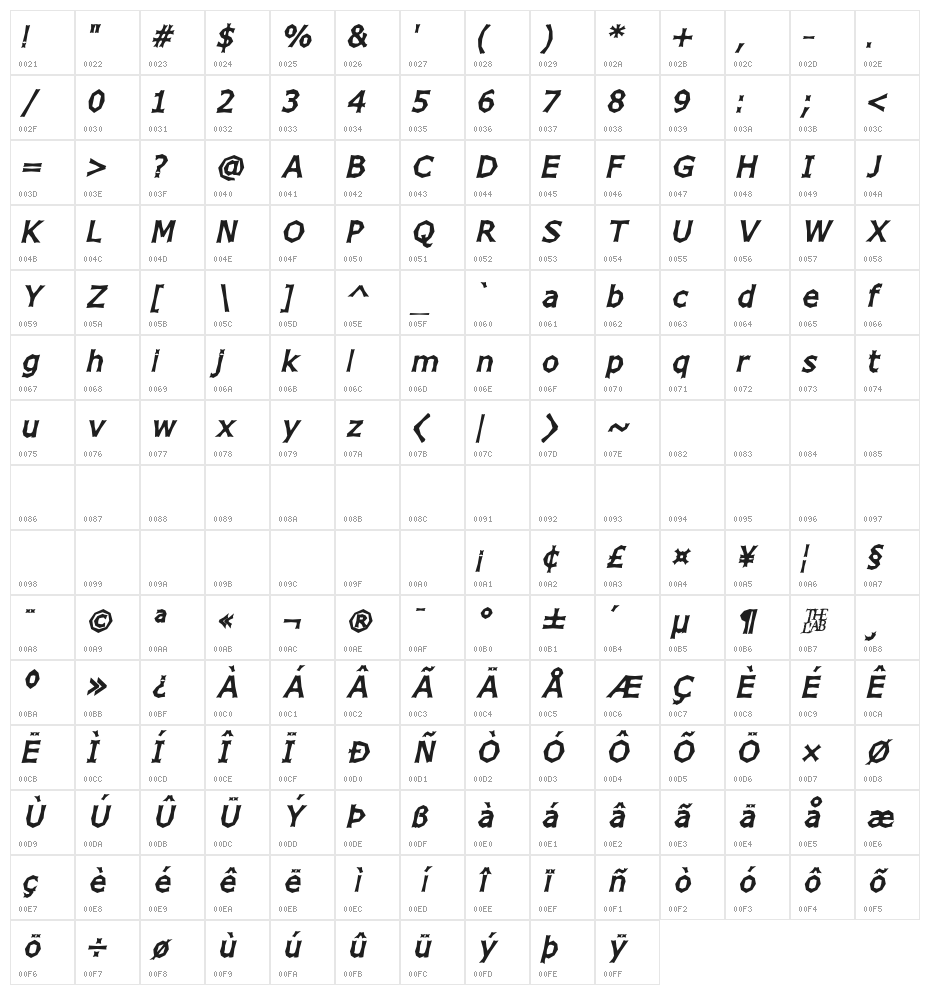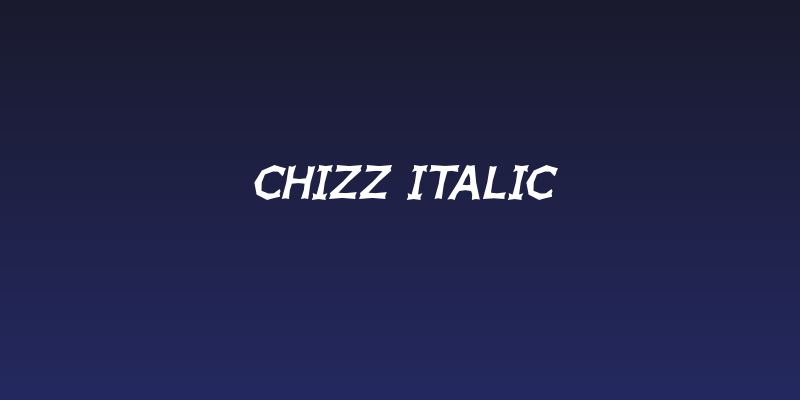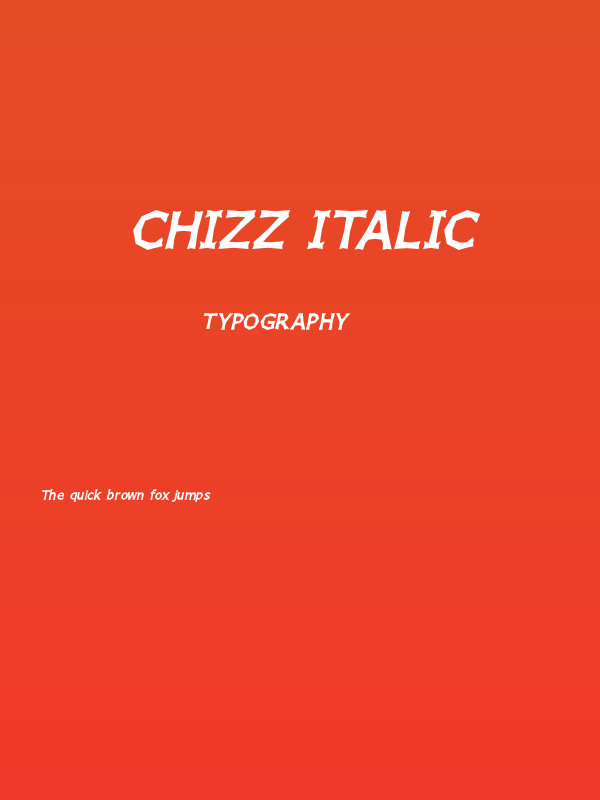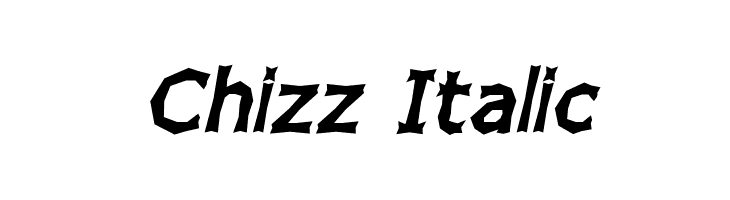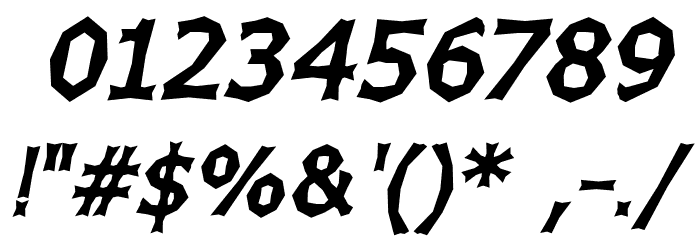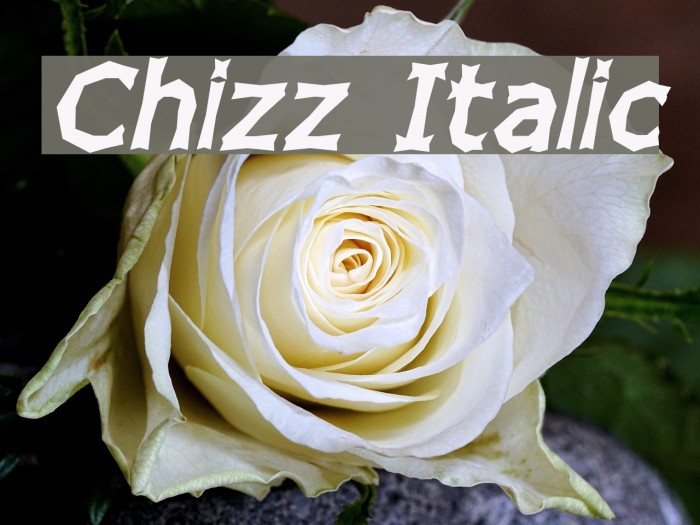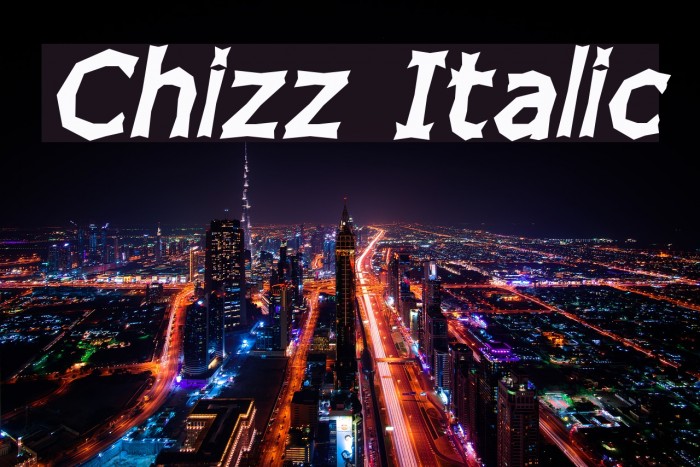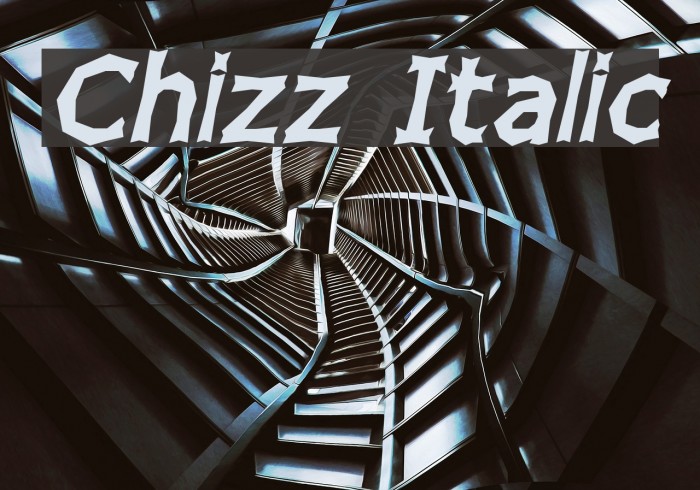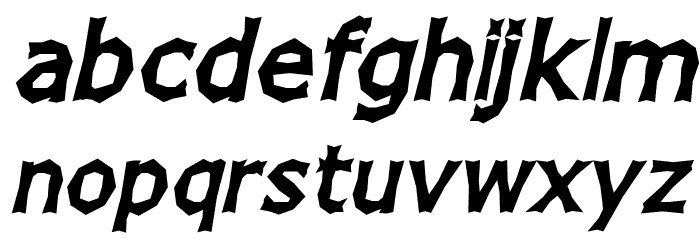
Chizz Italic Font
Chizz Italic Description
This font features a bold and dynamic style with a distinct italic slant, giving it a sense of movement and energy. The characters are sharply angular, with jagged edges that create a rugged and edgy appearance. This design choice makes it stand out, providing a unique visual impact. The uppercase and lowercase letters maintain a consistent style, while the numerals and special characters complement the overall aesthetic. The font's boldness and angularity make it suitable for projects that require a strong and assertive presence.
| Overall Style | Modern, Edgy |
| Proposed Projects | Ideal for edgy branding, poster designs, music album covers, and sports team logos. |